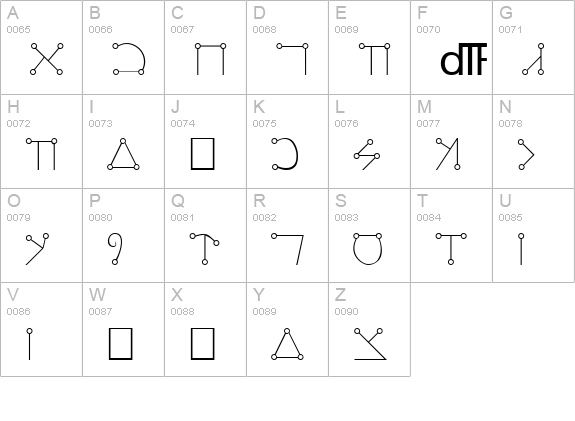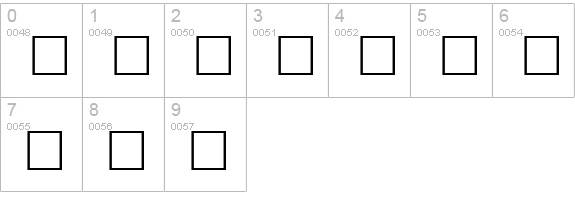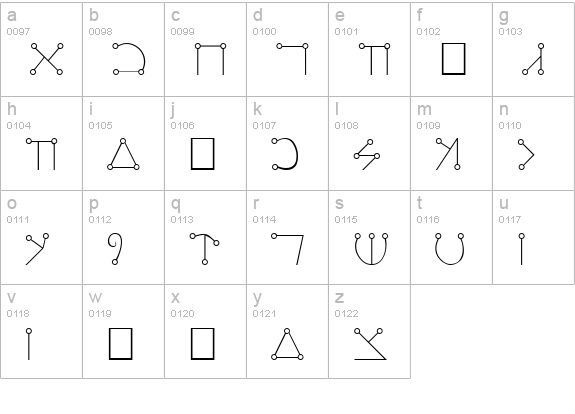
Angelic Regular Font Details
Angelic Regular is the standard, neutral variant in the Angelic typeface family \xE2\x80\x94 well suited to general body text, paragraphs, and standard typographic work.
The Angelic Regular font is a stunning and elegant typeface that exudes a sense of grace and beauty. With its delicate curves and sophisticated design, this font is perfect for adding a touch of celestial charm to your projects. The Angelic Regular font is versatile and can be used for a wide range of applications, from branding to invitations to social media graphics. The best part? This enchanting font is completely free to download at FontsMarket.com. Simply visit the website and enjoy the beauty of Angelic Regular without any cost. Don't miss out on this wonderful opportunity to enhance your designs with this heavenly font. Download Angelic Regular today and add a touch of angelic beauty to your creations.